The way brands access type is changing.
Previously, the choice has been binary: off-the-shelf fonts designed for mass use, or fully bespoke commissions built from the ground up. One offers speed and accessibility; the other, distinctiveness, control and ownership. But increasingly, studios and brands are finding that neither option fully reflects the realities of modern design—where timelines are tight, budgets are considered, and the demand for originality can be non-negotiable.
Customising pre-existing fonts, using the original design as a base, has become increasingly popular, so when we came into contact with Swiss type studio Newglyph through our font marketplace Type Department, we jumped at the chance of rethinking how we could provide more uniquely driven, independently made typographic voices for brands.
Announcing an official partnership between Type Department x Newglyph
Rather than starting from scratch or settling for the standard, the collaboration centres on a third approach: carefully customised, production-ready typefaces that retain the voice of an independent foundry while being adapted for specific, real-world use. We respect how important it is that foundries retain ownership over their intellectual property (their fonts), so this approach felt right in the sense that it didn’t compromise the character of the typefaces, nor the independence of the foundry.
Launching with 14 extensive font families, all developed exclusively for Type Department, this is more than a release—it’s the foundation of an ongoing model. One that rethinks not just how type is distributed, but how it is authored, adapted, and ultimately experienced by the brands that use it.
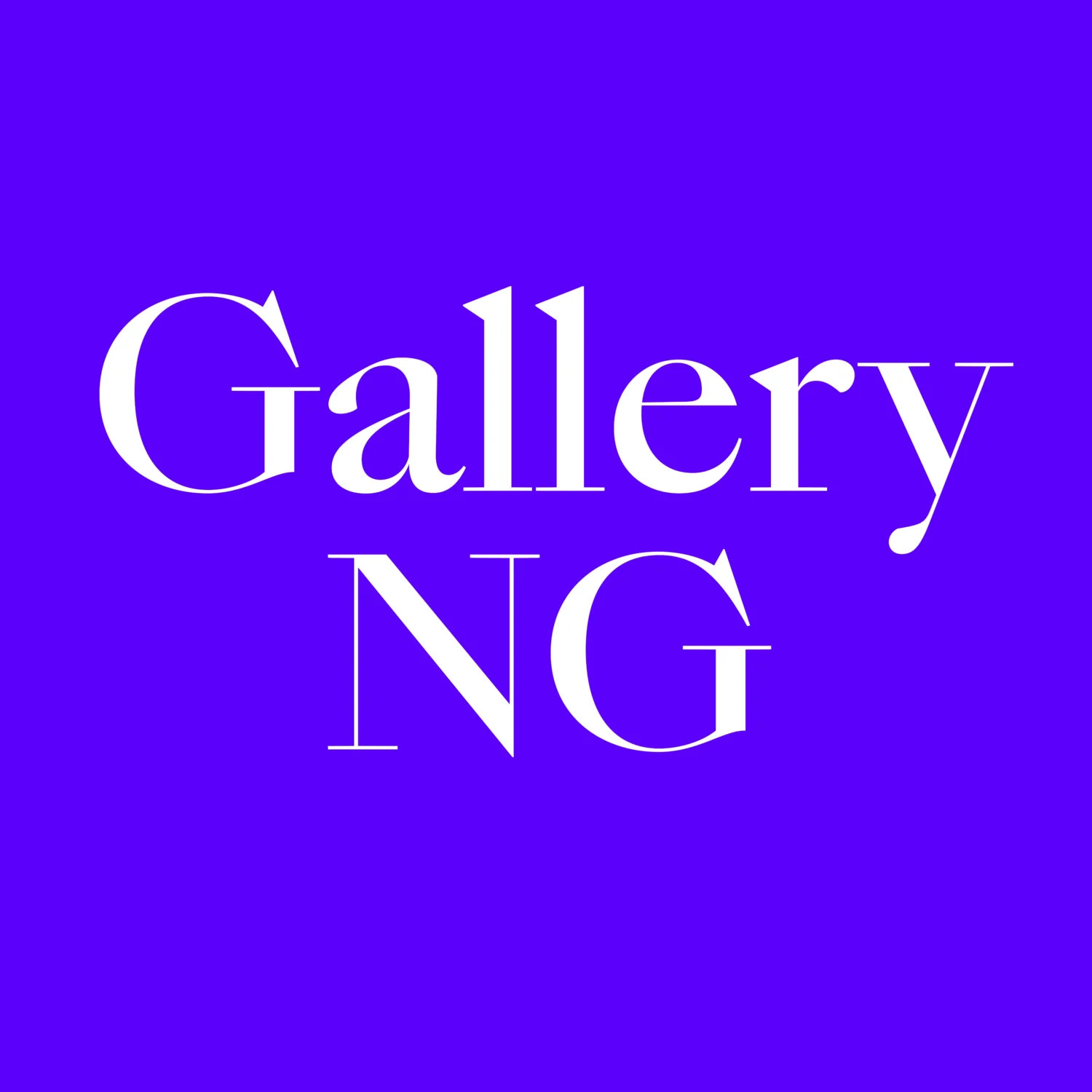
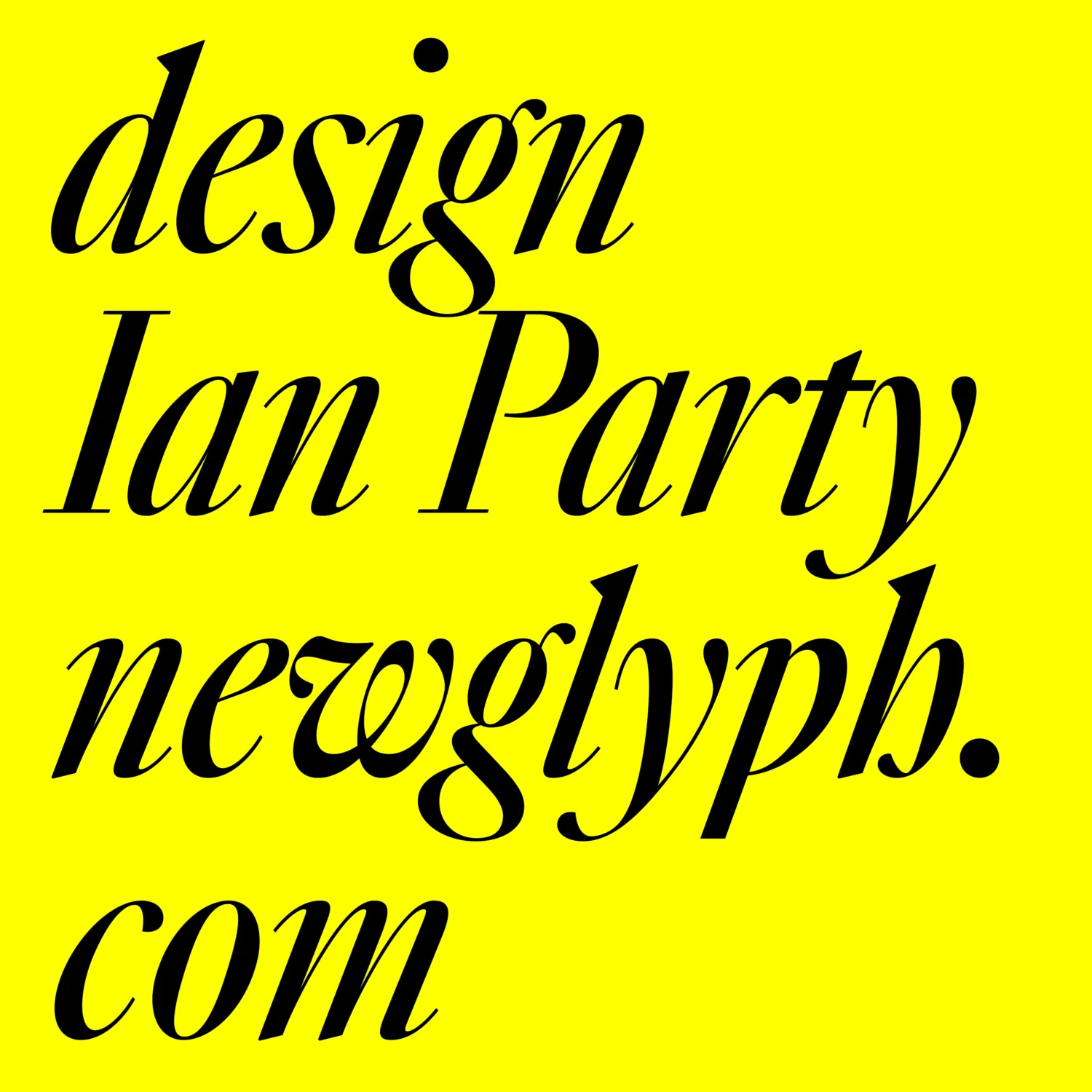
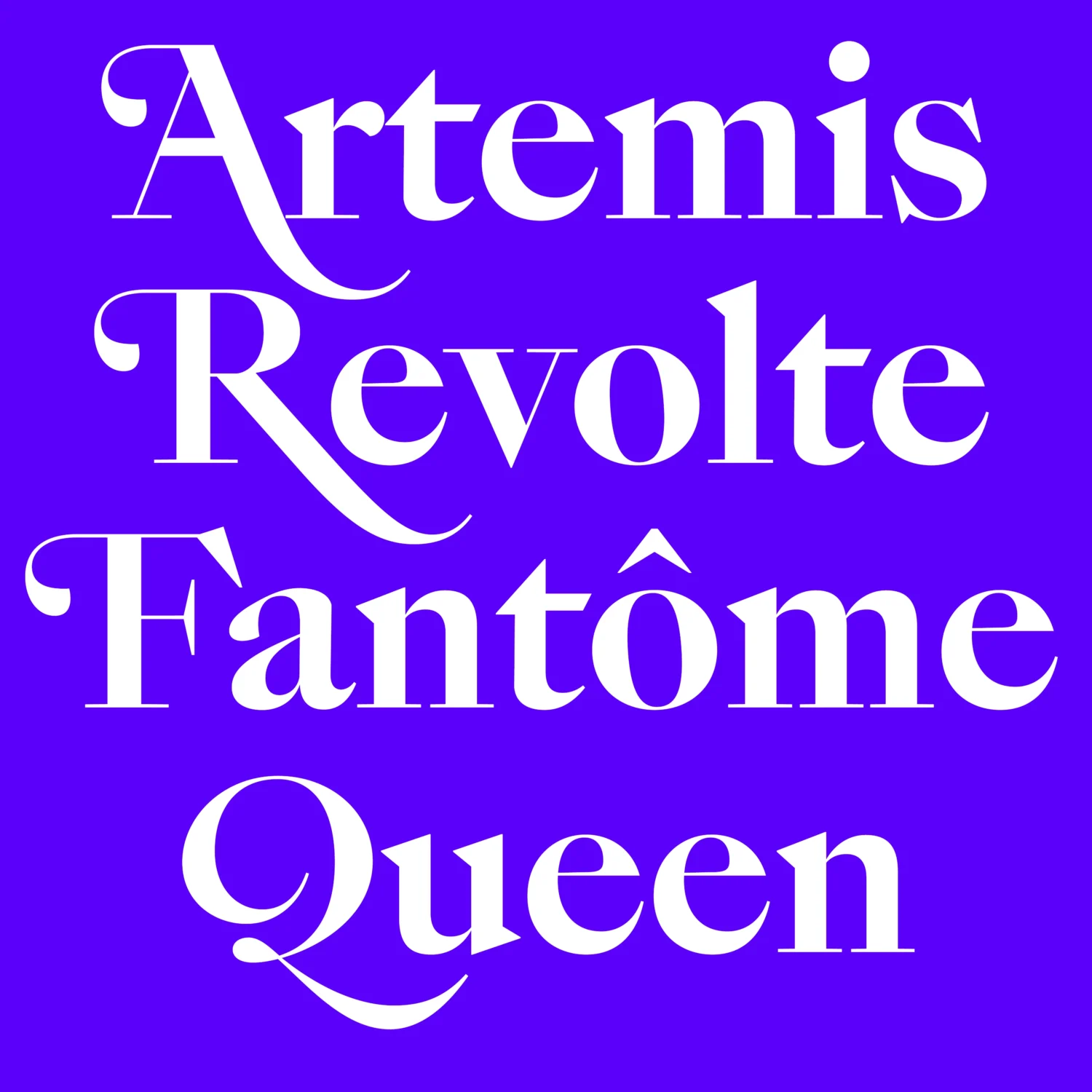
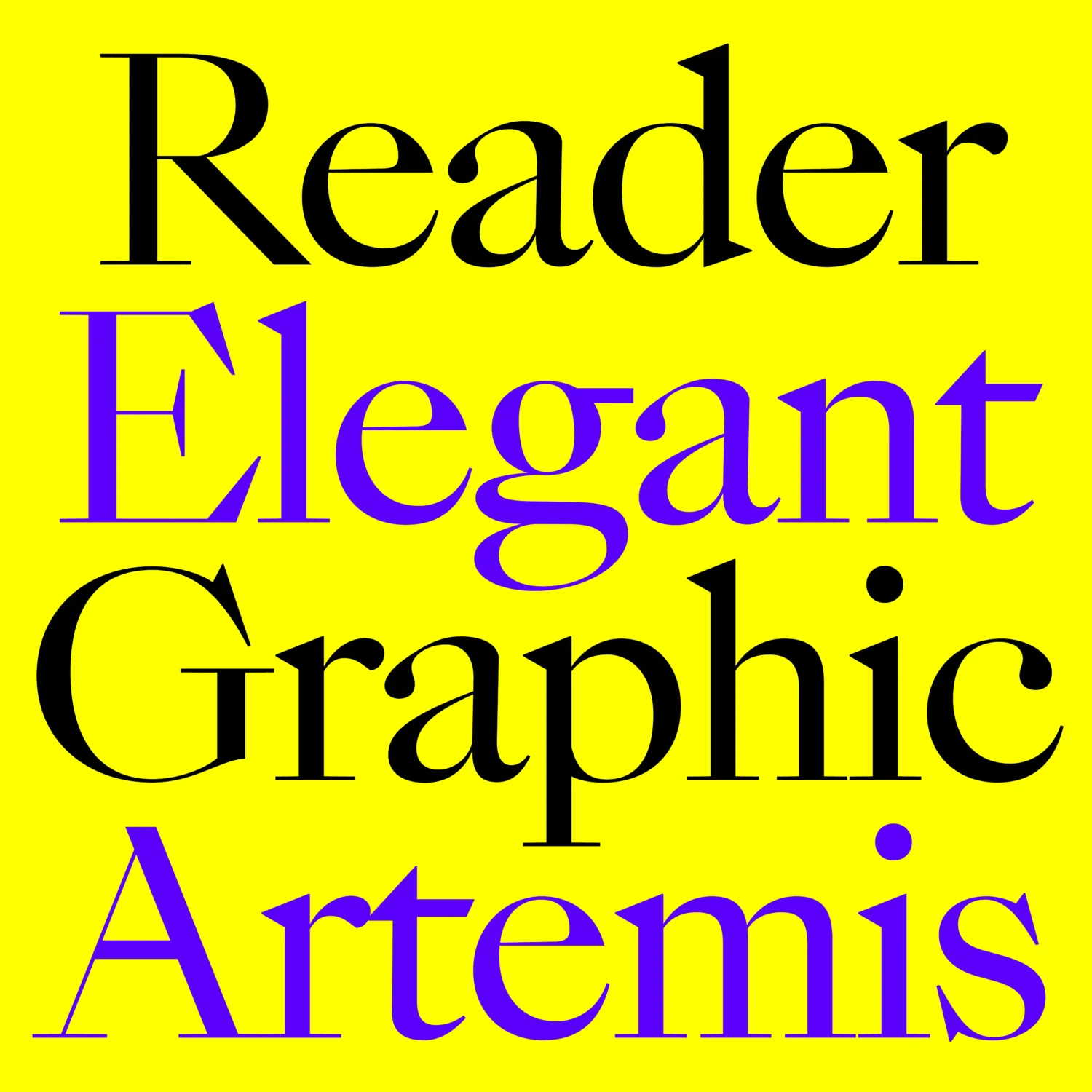
Gallery NG, designed by Ian Party, is a 17th-century-inspired variable typeface that blends historical elegance with contemporary expression. Rather than a revival, it’s a reimagining—combining bold proportions and high contrast to feel equally at home in fashion editorials, modern branding, and digital environments. Spanning 72 styles, the family invites designers to explore a wide range of tones, while its variable capabilities allow precise control over weight and contrast.
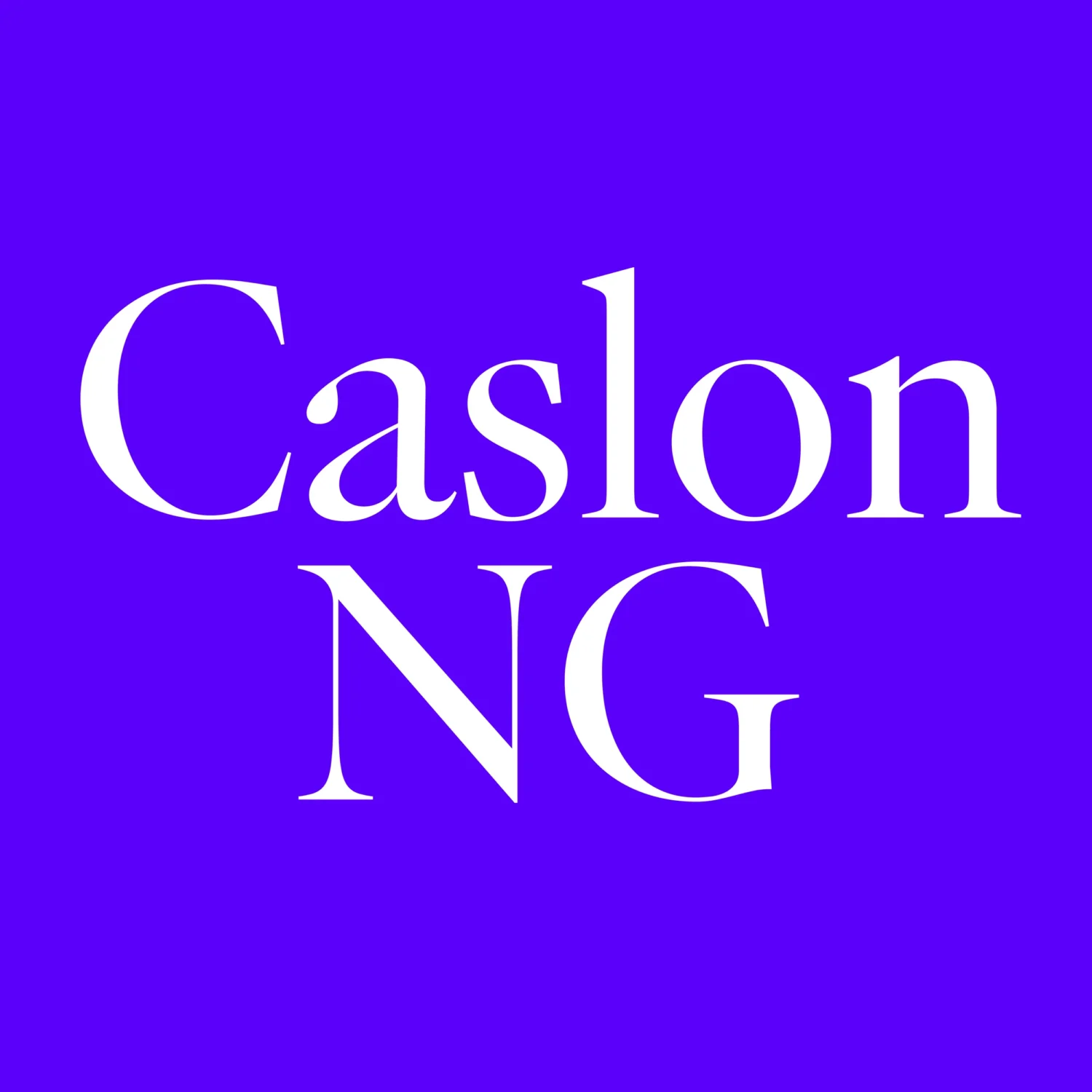
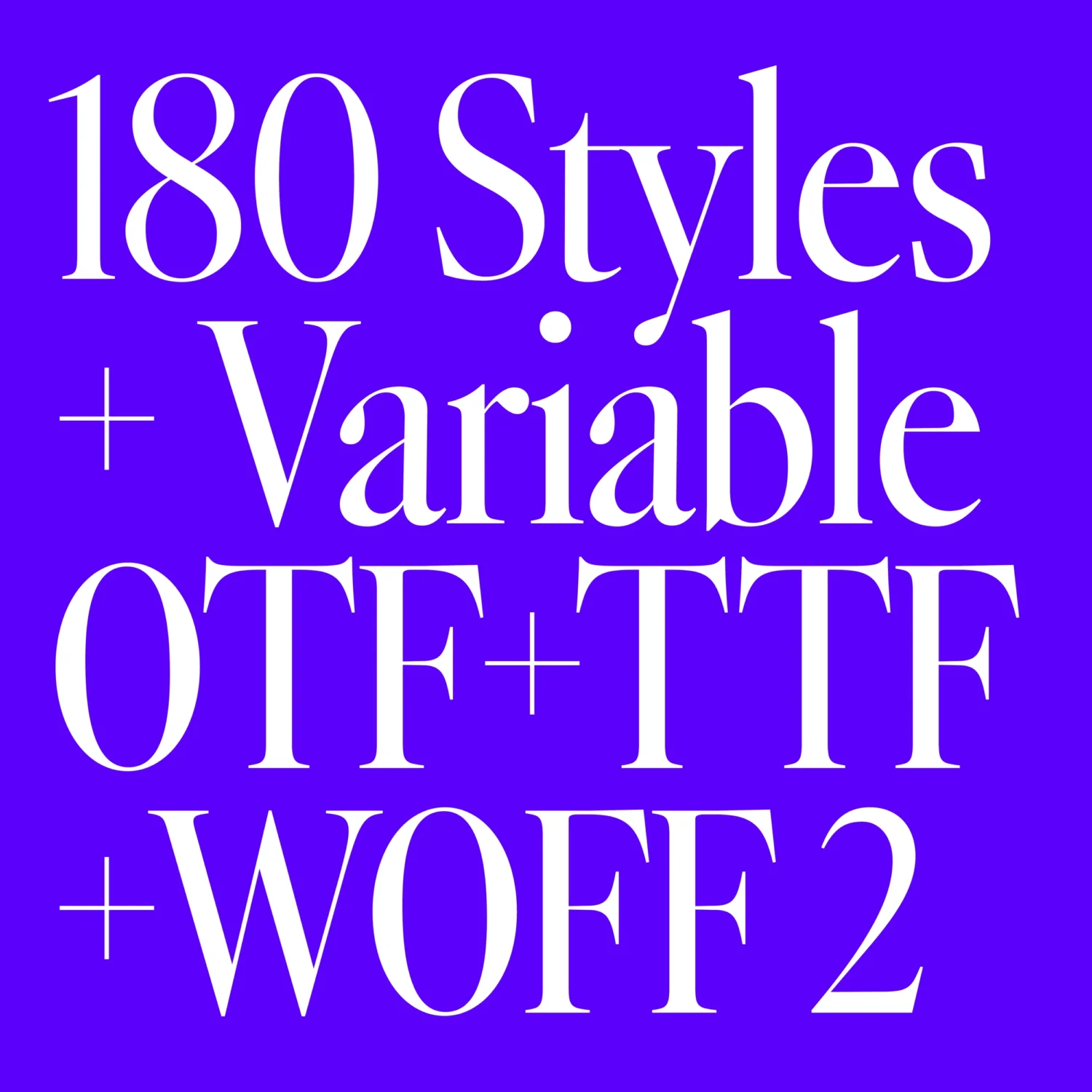
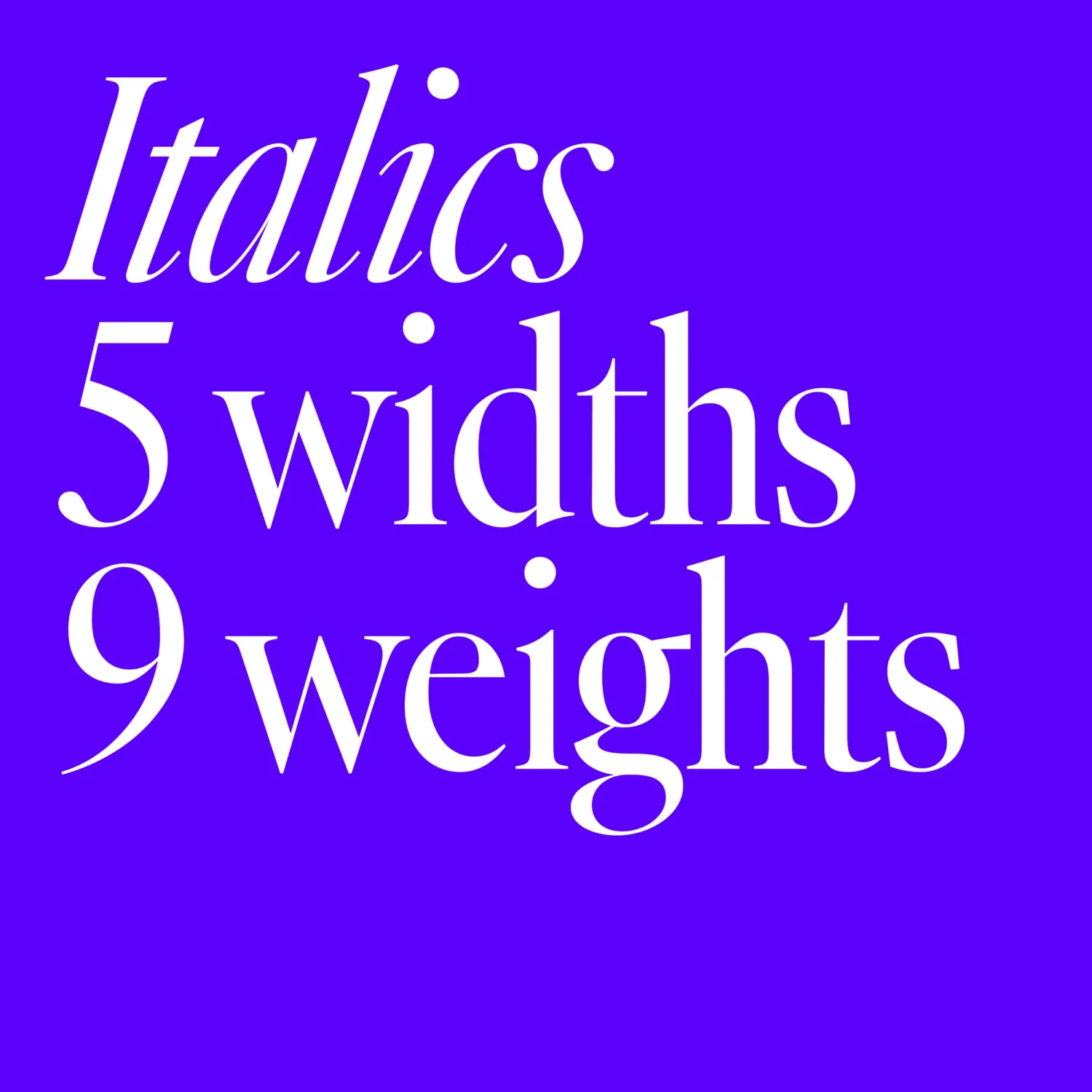
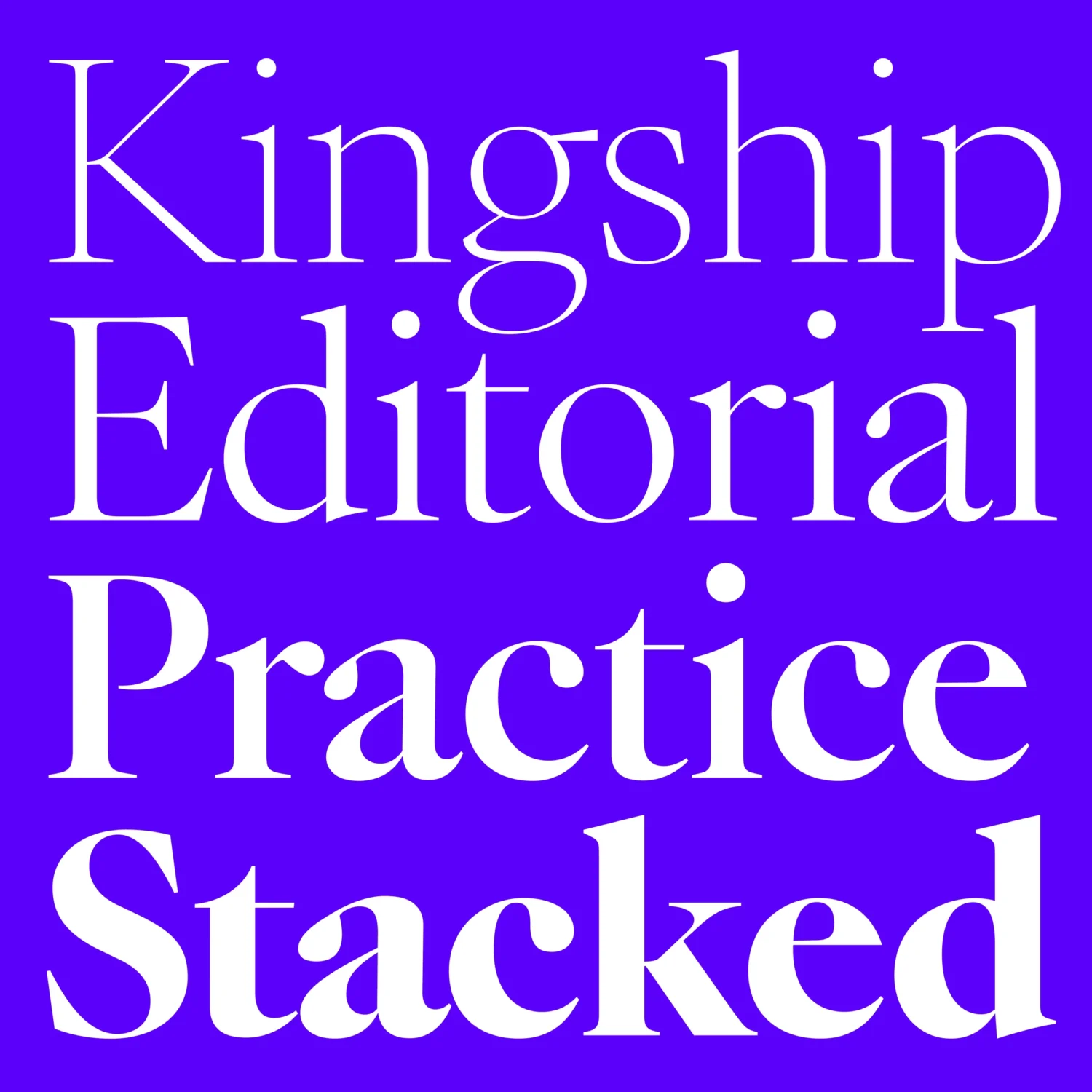
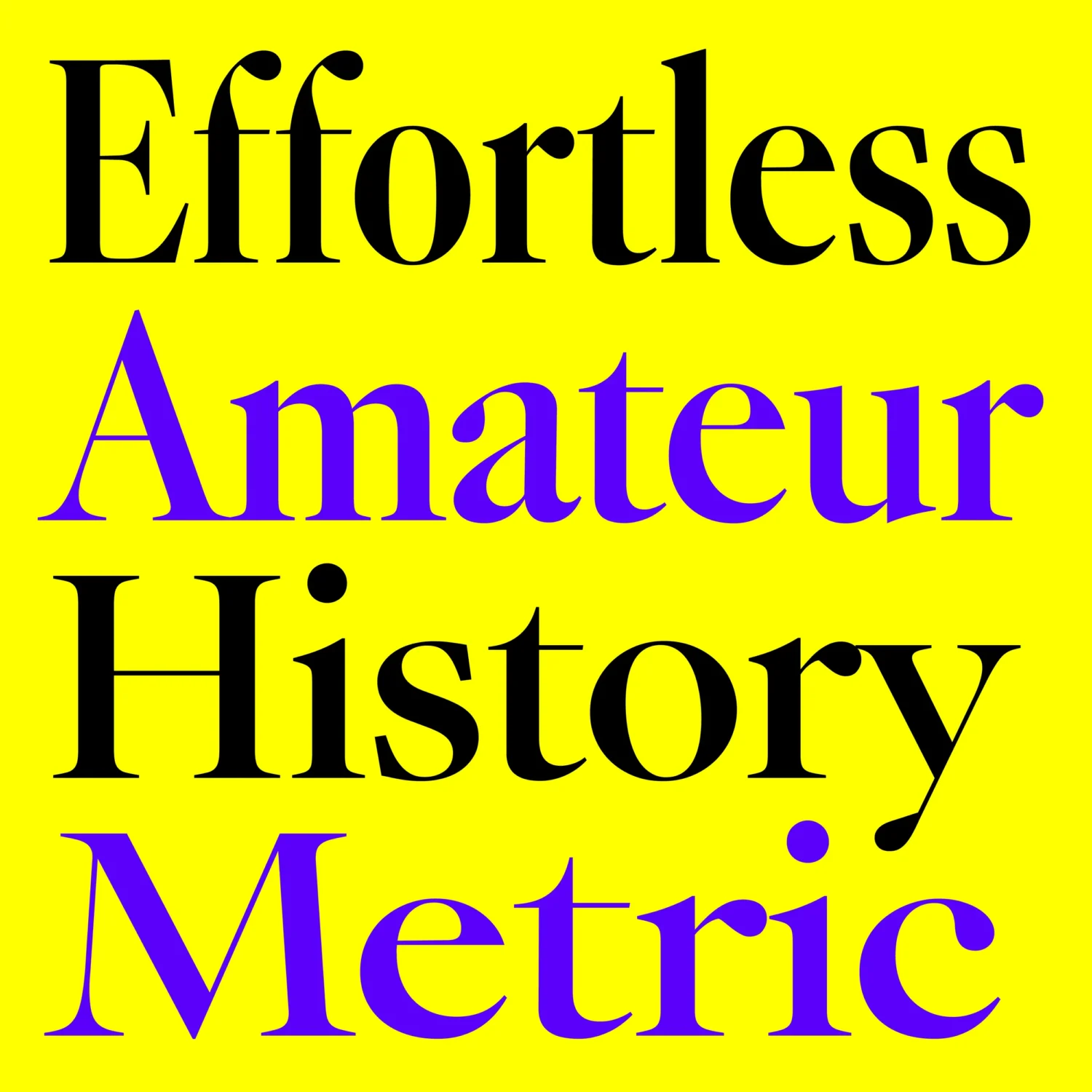
Caslon NG, a 180-style monster of a font family, is a variable typeface that reinterprets the classic Garalde tradition for contemporary use, drawing inspiration from the work of Claude Garamond and later masters. Blending soft, organic curves with precise structure, it balances warmth and sophistication through bracketed serifs, refined contrast, and open, readable forms—making it well suited to editorial, branding, and immersive reading contexts.
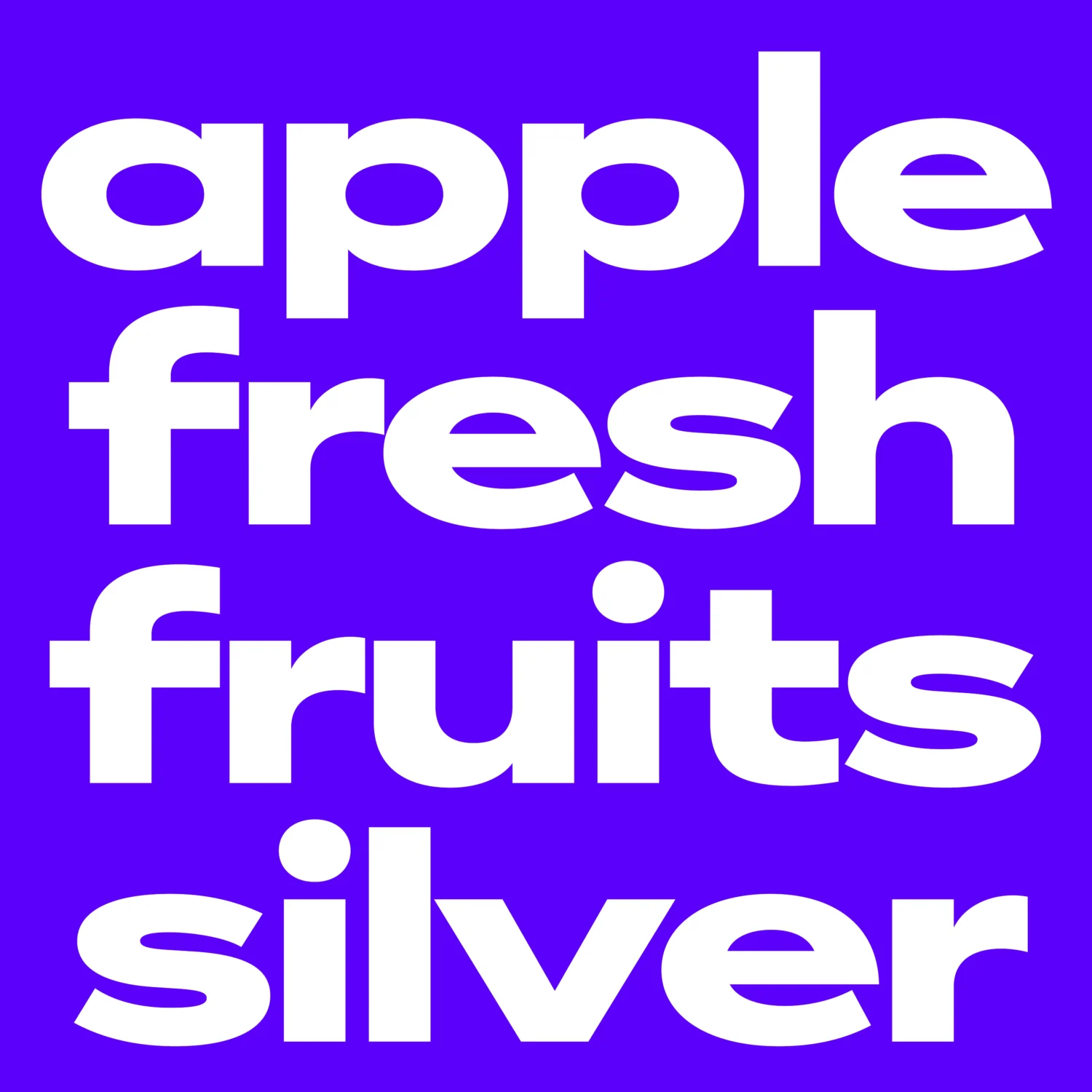
Circle NG, is a contemporary interpretation of the geometric sans tradition, drawing on the bold visual language of early 20th-century design. As a variable typeface, it offers full control over weight and width, allowing it to shift effortlessly from light, refined applications to bold, graphic statements, while its minimal contrast and even proportions ensure readability and versatility across contexts.
Mono NG, designed by Ian Party, is a variable monospace typeface that reimagines the conventions of fixed-width monospace with greater flexibility and expression. Rooted in the legacy of typewriter and coding fonts, it retains the structured rhythm of monospacing while introducing more refined proportions and a fluid, contemporary feel.
With 44 styles and full control over weight and width, Mono NG moves effortlessly between minimal, functional applications and bold, high-impact design, making it a versatile tool for branding, editorial, and digital environments.